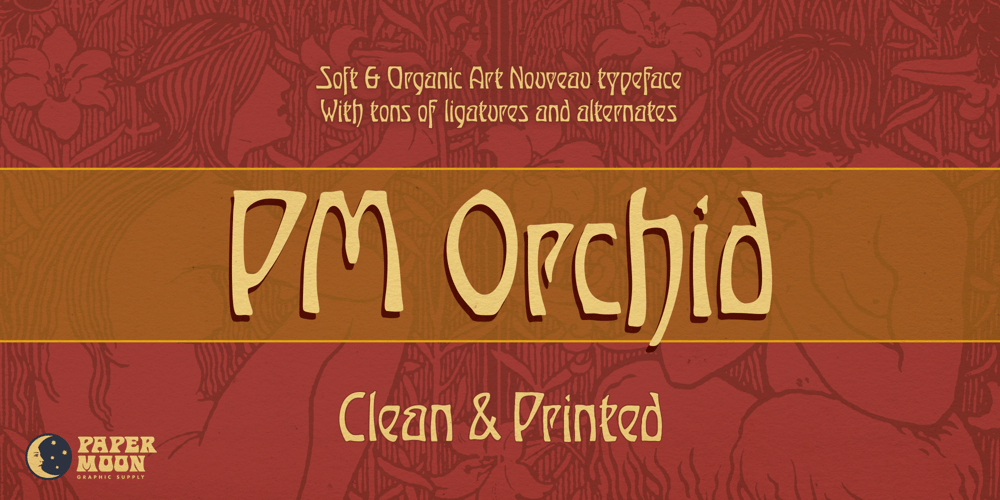
PM Orchid Font Family was designed by Scott Banks and published by Paper Moon Type & Graphic Supply. PM Orchid contains 2 styles and family package options. PM Orchid is a soft, flowing Art Nouveau typeface with tons of ligatures and alternates. It comes in two handy styles – clean and printed.PM Orchid Clean has sharp, clean edges with slightly rounded corners. It is designed to be used with projects that require a clean edge like wedding invitations and modern layouts.PM Orchid Printed has the feeling of vintage letterpress printing. It’s slightly rough distressed edges allow it to fit in with vintage style designs that have more tactile design elements.